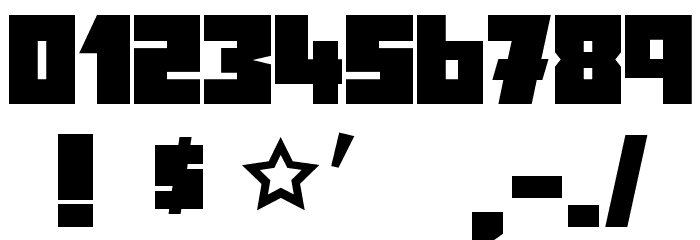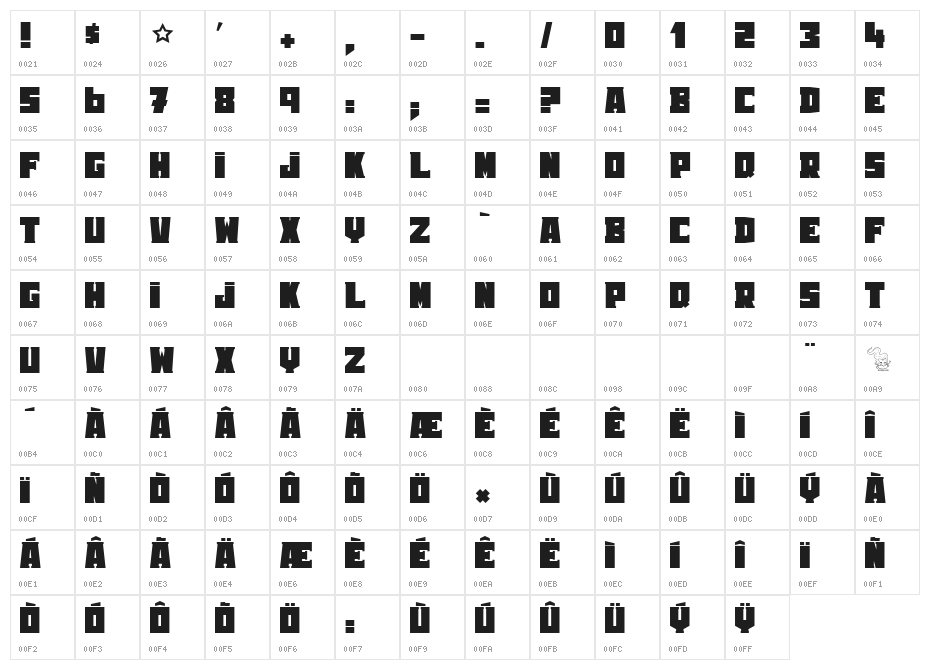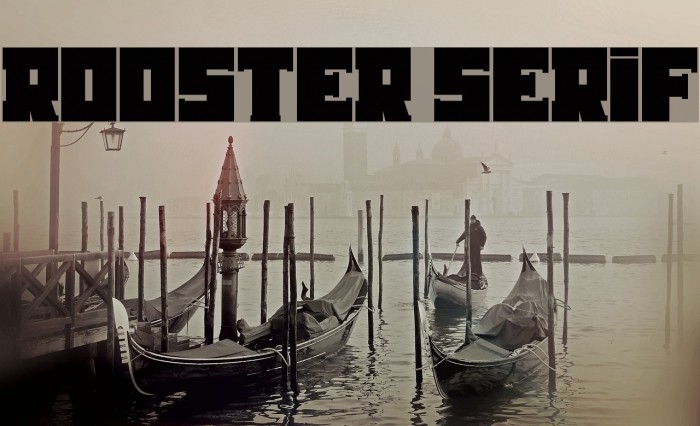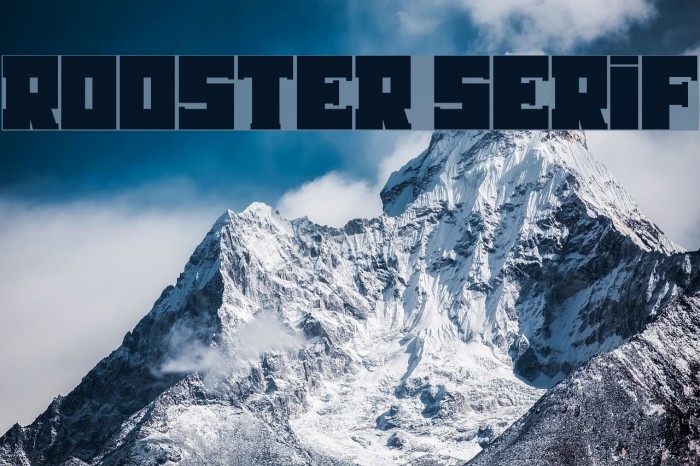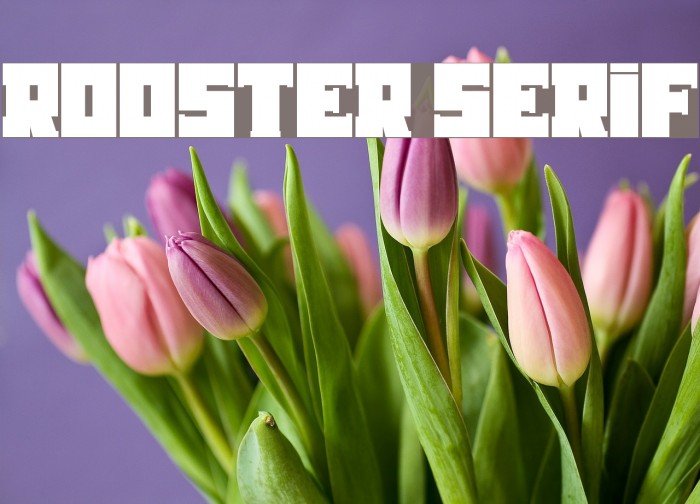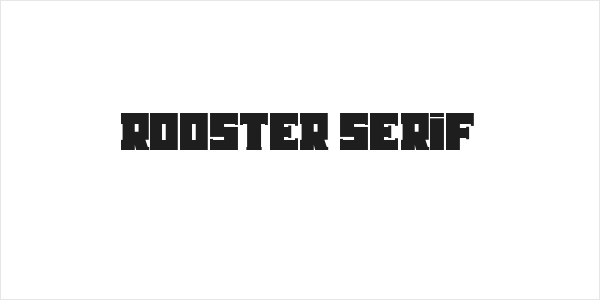
Rooster Serif Font
Rooster Serif Description
This font features bold, blocky characters with a distinct geometric style. The letters are heavily stylized with sharp angles and a strong presence, making it ideal for attention-grabbing designs. The uppercase and lowercase letters maintain a consistent weight, contributing to a cohesive look. Numbers and special characters follow the same bold aesthetic, ensuring uniformity across all text elements. The font's unique design elements, such as the angular cuts and thick strokes, give it a modern and edgy feel, perfect for projects that require a strong visual impact.
| Proposed Projects | Ideal for posters, headlines, branding, and any design requiring a bold statement. |